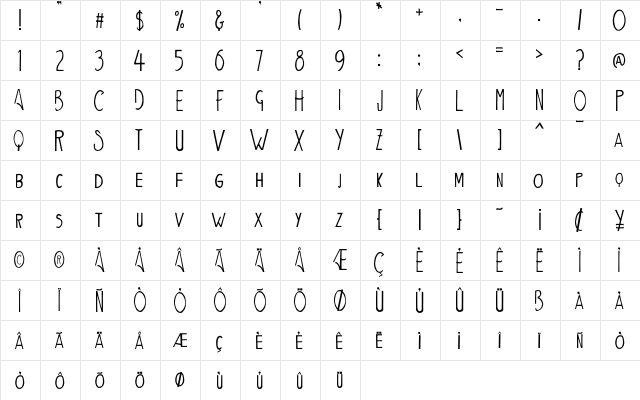
Aiden Regular
Design Context for Aiden Typeface
Aiden offers clean, dependable letterforms without strong stylistic allegiance, making it a practical choice for designers who need flexibility.
Pro Tip: Use Aiden in both headline and body roles to test its range before committing to a single application.